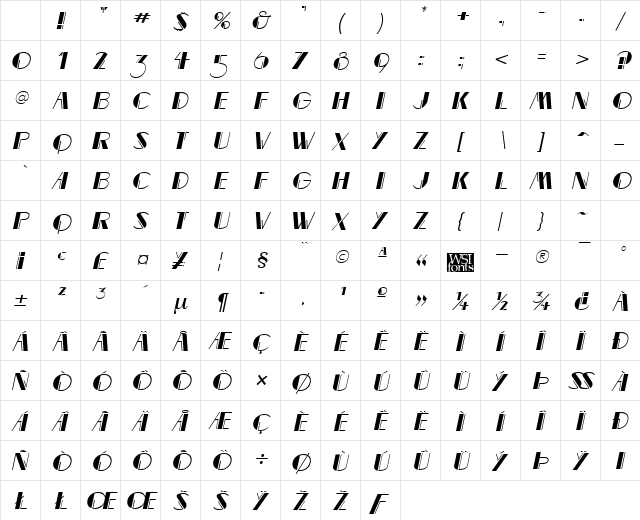
MarqueeMieux Italic
Complete MarqueeMieux Italic glyph index. Displaying only characters natively supported by MarqueeMieux Italic font.
Design Context for MarqueeMieux
MarqueeMieux is a composed and adaptable typeface that performs quietly and consistently across a wide range of design contexts. The slanted form adds forward momentum and visual energy.
Pro Tip: Use MarqueeMieux for emphasis, pull quotes, and subheadings where its slanted energy can add rhythm to the layout.